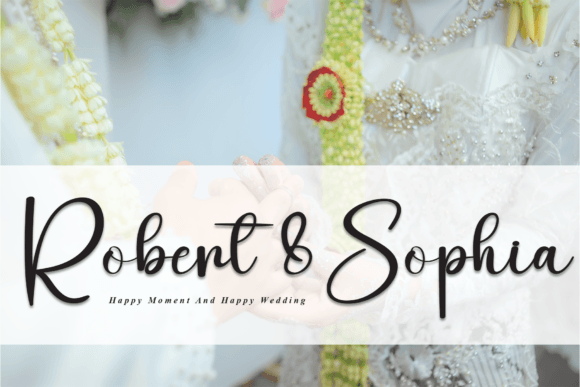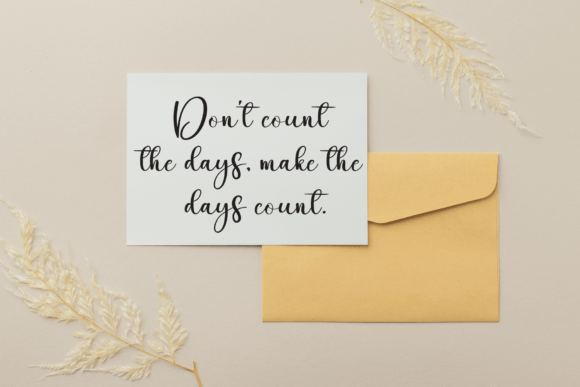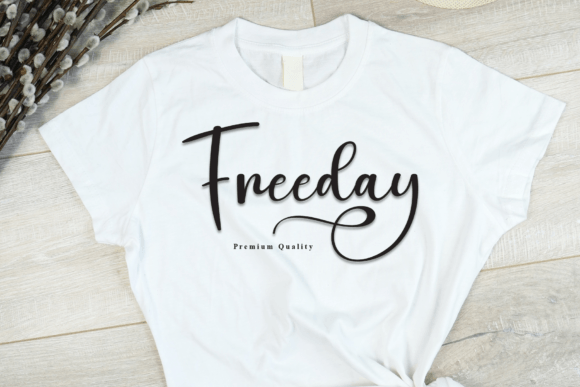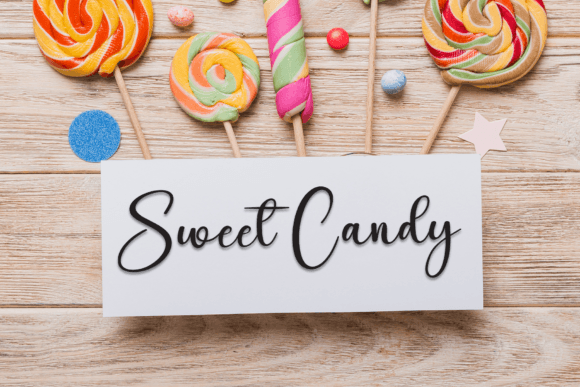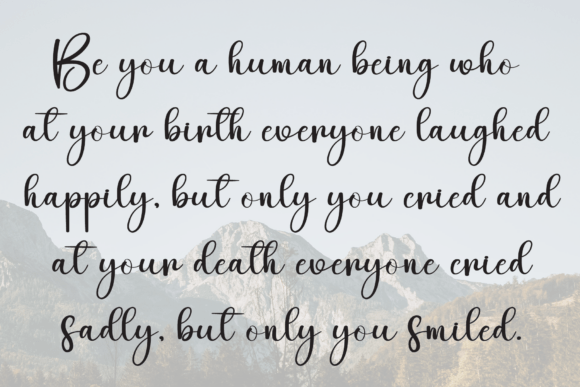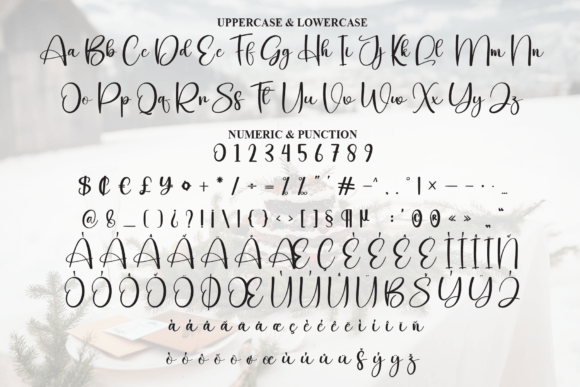
Introducing the Christmas Wedding Font: A Festive and Romantic Handwritten Delight
Are you searching for a font that captures the magic and romance of the holiday season? Look no further than the “Christmas Wedding” font, a beautiful handwritten script that exudes warmth, charm, and festive flair. This elegant font is perfect for designers, crafters, and anyone looking to add a touch of seasonal sophistication to their projects.
The Perfect Blend of Festive and Romantic
The “Christmas Wedding” font is a masterful blend of festive and romantic elements, making it an ideal choice for holiday cards, wedding invitations, and seasonal designs. Its flowing letters are carefully crafted to evoke the feeling of snowflakes gently falling on a winter’s night, while its elegant lines and curves bring to mind the romance and joy of the holiday season.
What Makes the Christmas Wedding Font So Special?
So, what sets the “Christmas Wedding” font apart from other fonts? Here are just a few reasons why this beautiful handwritten script is a must-have for designers and crafters:
- Unique and eye-catching: The “Christmas Wedding” font is a one-of-a-kind script that is sure to grab attention and leave a lasting impression.
- Festive and romantic: This font perfectly captures the magic and romance of the holiday season, making it perfect for wedding invitations, holiday cards, and seasonal designs.
- Elegant and sophisticated: The flowing letters and elegant lines of the “Christmas Wedding” font bring a touch of sophistication and refinement to any project.
- Versatile: This font can be used for a wide range of projects, from holiday cards and wedding invitations to seasonal designs and more.
Uses for the Christmas Wedding Font
The “Christmas Wedding” font is incredibly versatile, and can be used for a wide range of projects, including:
- Holiday cards: Add a touch of festive flair to your holiday cards with this beautiful handwritten font.
- Wedding invitations: Make your wedding invitations truly special with the “Christmas Wedding” font, perfect for winter weddings or holiday-themed wedding designs.
- Seasonal designs: Use this font to create eye-catching seasonal designs, such as Christmas decorations, holiday gift tags, and more.
- Crafting projects: Add a personal touch to your crafting projects, such as scrapbooking, journaling, and card making, with the “Christmas Wedding” font.
Tips for Using the Christmas Wedding Font
Here are a few tips for getting the most out of the “Christmas Wedding” font:
- Pair with complementary fonts: Pair the “Christmas Wedding” font with complementary fonts to create a unique and eye-catching design.
- Experiment with colors: Try out different colors and color combinations to find the perfect look for your project.
- Use for headlines and titles: The “Christmas Wedding” font is perfect for headlines and titles, adding a touch of festive flair to your project.
The “Christmas Wedding” font is a beautiful handwritten script that is sure to bring a touch of festive magic and romance to your projects. With its elegant, flowing letters and sophisticated design, this font is perfect for designers, crafters, and anyone looking to add a touch of seasonal charm to their work. Whether you’re creating holiday cards, wedding invitations, or seasonal designs, the “Christmas Wedding” font is a must-have for your design toolkit.